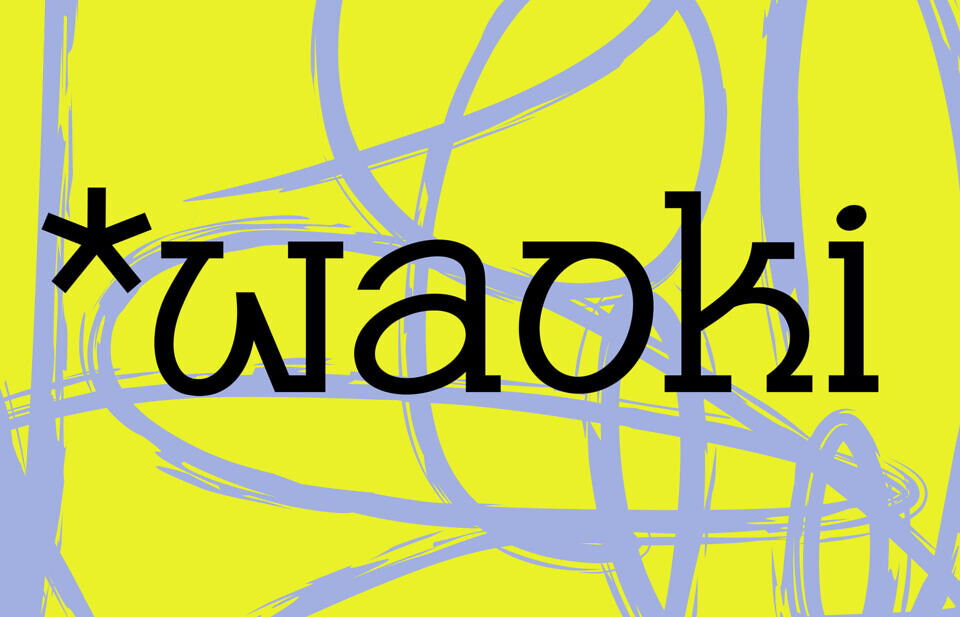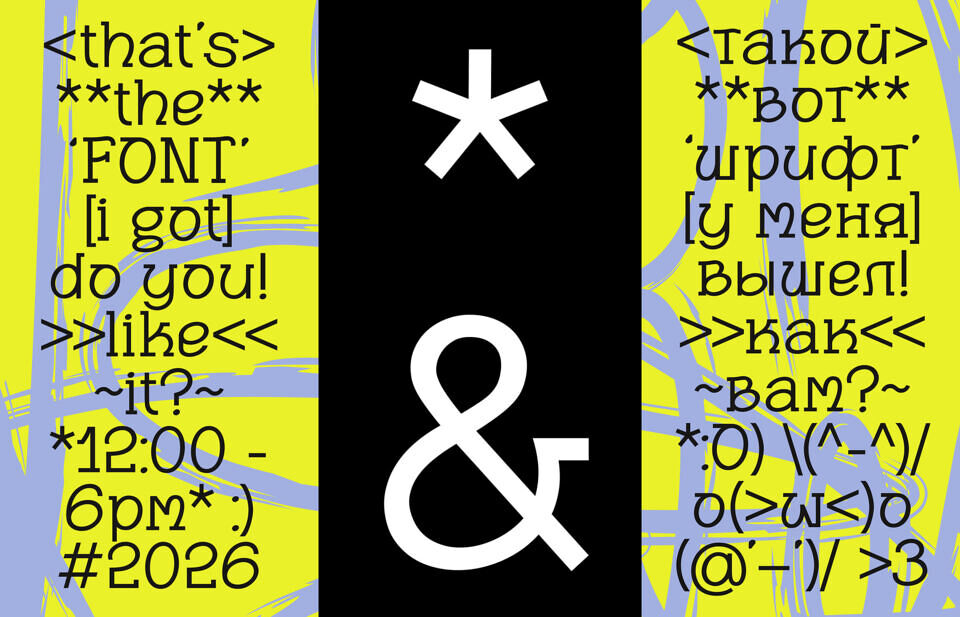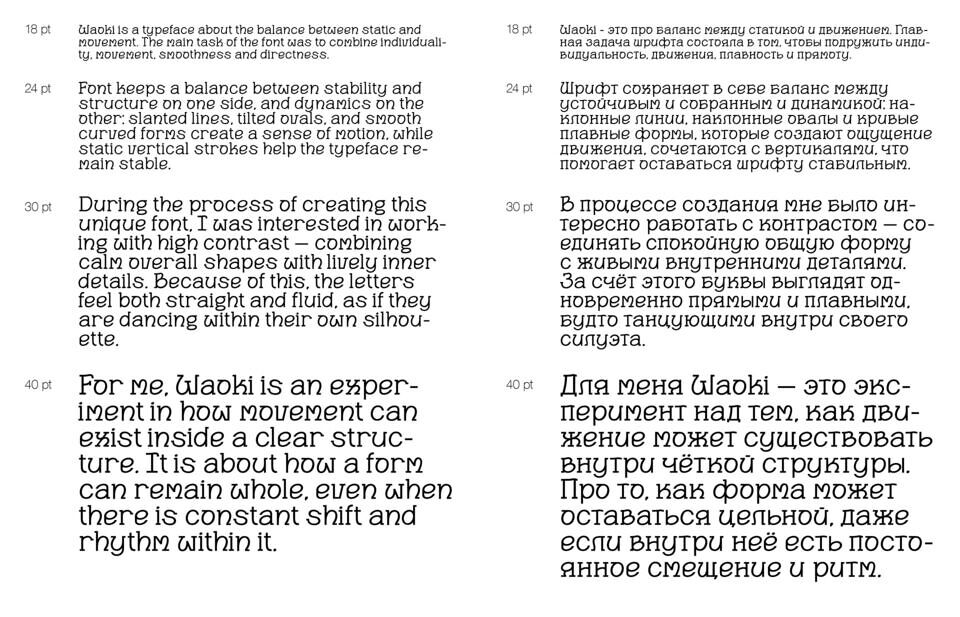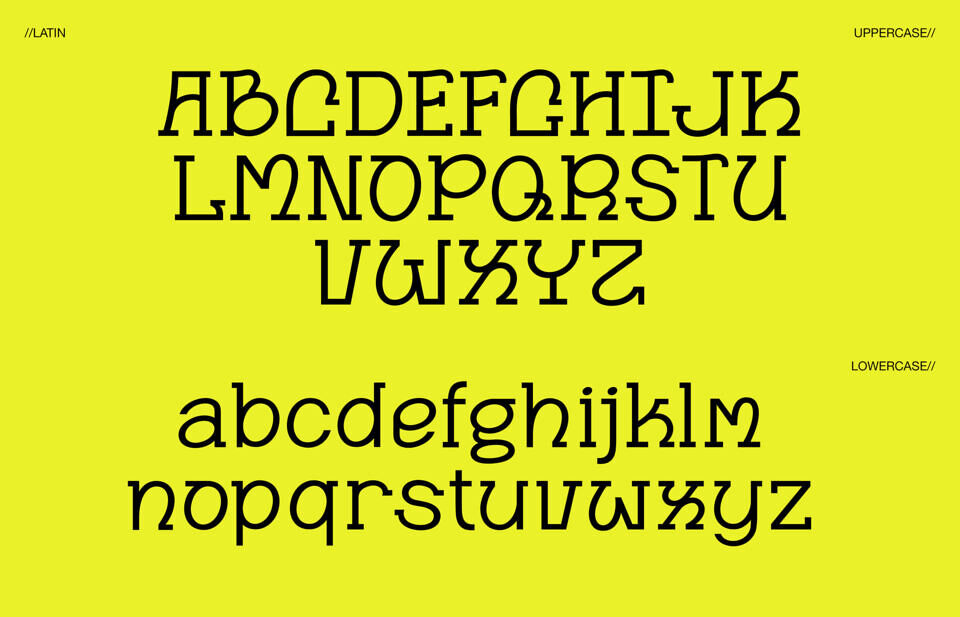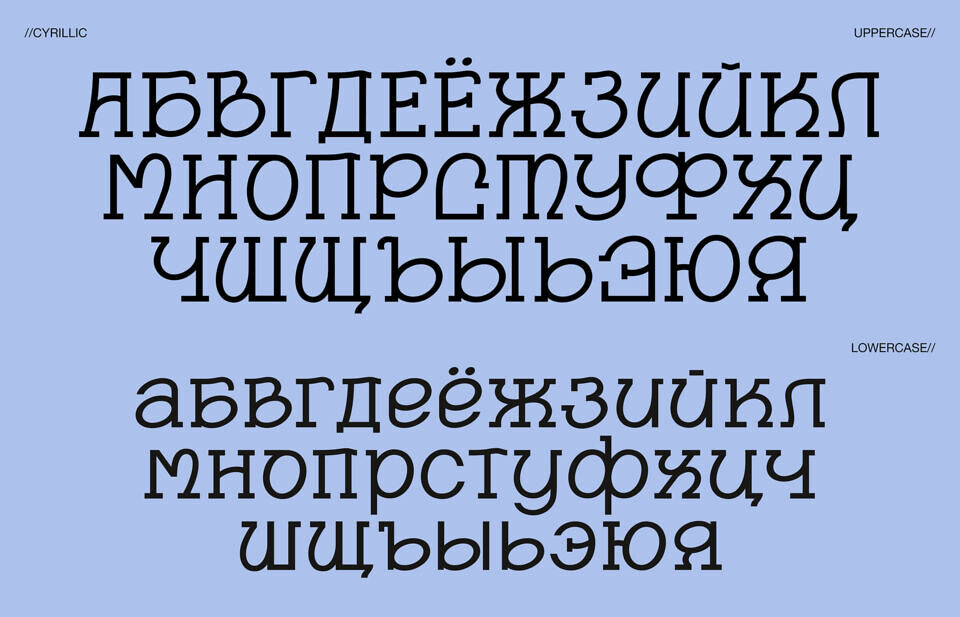
Waoki is a typeface built on the interplay between structural stability and dynamism. Its character is shaped by diagonal strokes, slanted ovals, and smooth curves that create a sense of movement within a stable framework.
Waoki explores the possibility of rhythm and displacement existing within a clearly defined form, while preserving the integrity of its silhouette and the distinct expressiveness of each character.